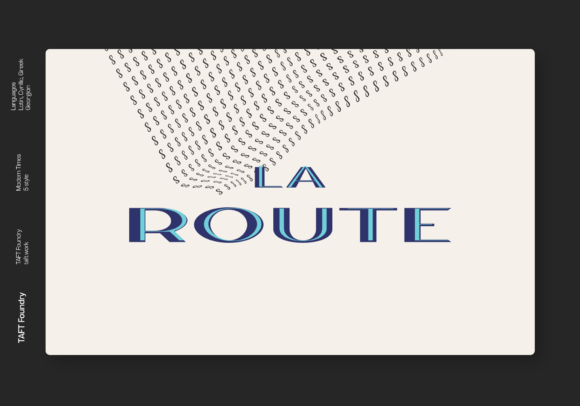
Step into the future of your brand's visual identity by introducing La Route, a display font with an uncanny ability to evoke elegance and captivate audiences. Crafted with a minimalist and techno-inspired aesthetic, La Route is more than just a font - it's a portal to a world of digital artistry and cutting-edge design.
Unleash the power of La Route's clean lines and geometric shapes, perfectly tailored to command attention in campaign posters, logos, and any digital canvas that demands a touch of brilliance. Prepare to witness your designs transform into captivating masterpieces, leaving an indelible mark on the minds of your audience.
With La Route, you're not simply downloading a font; you're stepping into a creative revolution. Embrace La Route's inherent versatility and watch it seamlessly adapt to your design vision, whether it's creating social media posts, website headers, or product packaging. Its inherent flexibility ensures that La Route effortlessly elevates your designs, adding a touch of sophistication that resonates with the contemporary audience.
This is more than just a font; it's a statement of intent. La Route is your gateway to unlock the doors of creativity, transforming your designs into captivating experiences that leave a lasting impression. So, embark on this journey with La Route and elevate your brand's visual identity to new heights.